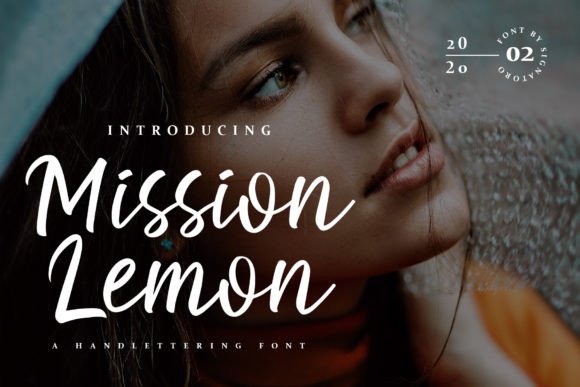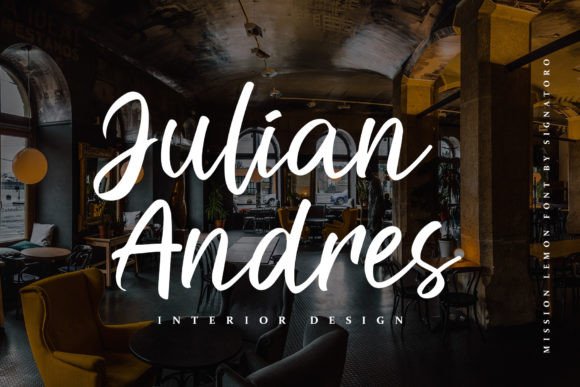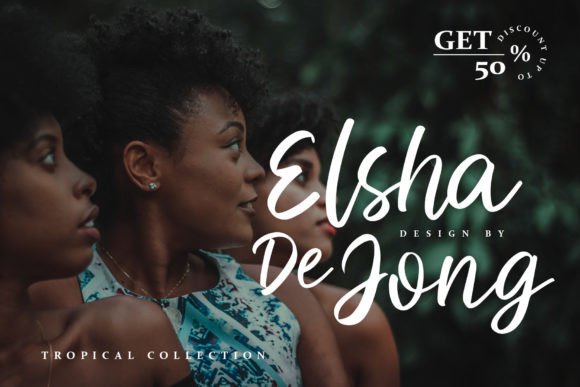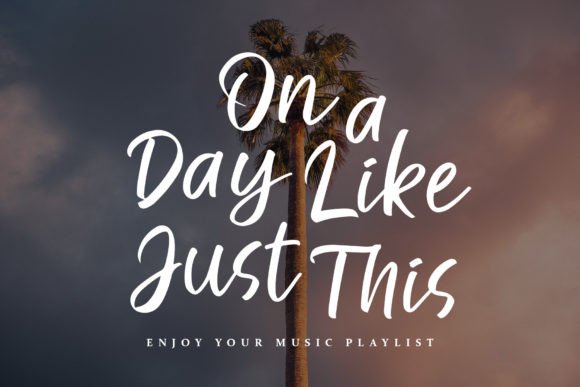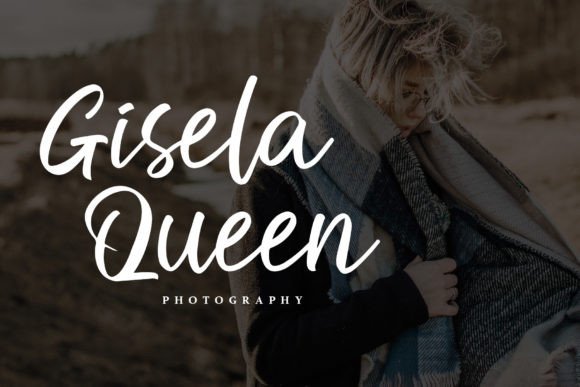
Introducing Mission Lemon, a simple handwritten font that offers a unique look and a modern style. This font is a versatile addition to your design toolkit, suitable for various applications such as logos, branding, print media, social media posts, wedding invitations, watermarks, and more. Incorporating Mission Lemon into your projects will make them outstanding with its distinctive and contemporary flair.
What makes Mission Lemon special is its simplicity and modern handwriting style. The font brings a touch of authenticity and freshness, making it adaptable to a wide range of design contexts. Imagine Mission Lemon enhancing your logos, where it adds a modern and unique identity to your brand. Picture it in wedding invitations, where it introduces a casual yet stylish charm.
The versatility of Mission Lemon allows it to shine across different design applications. Whether used for digital or print media, this font adapts seamlessly, contributing to the visual appeal of your projects. Its simple and modern design makes it a font that adds a touch of contemporary elegance to your creative endeavors.
Visualize Mission Lemon becoming an integral part of your design toolkit, making your projects stand out with its unique and modern look. Envision it on social media posts, where its fresh style adds a dynamic and engaging element. The font’s versatility and distinctive nature make Mission Lemon a valuable addition that brings a special touch to your designs.
In conclusion, Mission Lemon is not just a font; it’s a simple and modern design asset that enhances the beauty of your creative projects. Download it today and experience how it transforms your logos, branding, invitations, and more into expressions of contemporary style. Make Mission Lemon a cherished addition to your font collection, and let it be the key to unlocking a world of creativity and modern elegance in your designs!